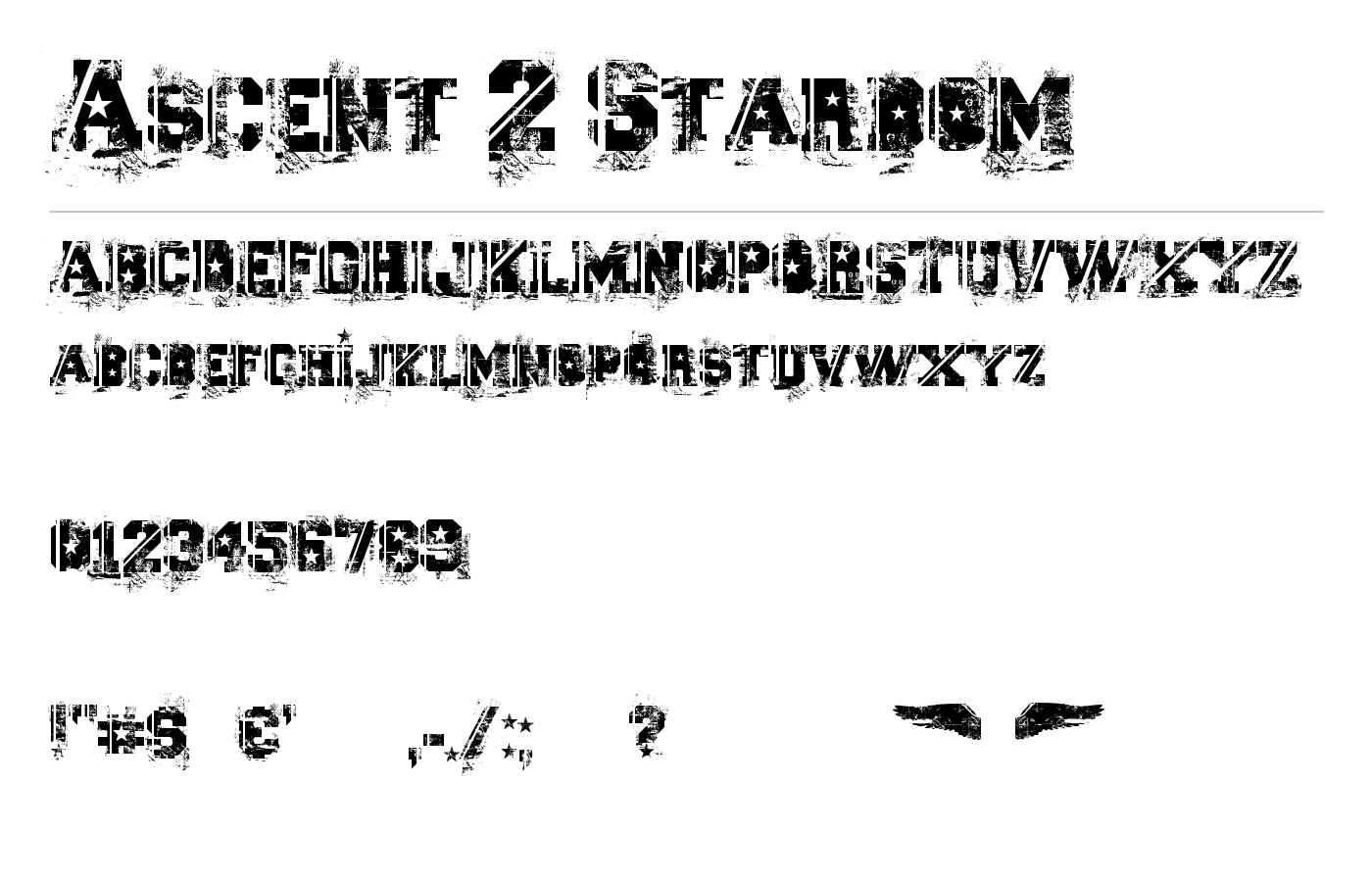
Ascent 2 Stardom is a bold, distressed stencil-style sans serif font that exudes a rugged, industrial vibe with its rough texture and star-shaped cutouts. Its heavy weight and condensed form make it ideal for striking headlines or logos that demand attention, especially in designs with a gritty, urban, or military-inspired theme. This font’s bold presence and unique detailing bring a strong, edgy personality, perfect for posters, apparel branding, and creative projects seeking a rebellious and powerful look.
Ascent 2 Stardom Font